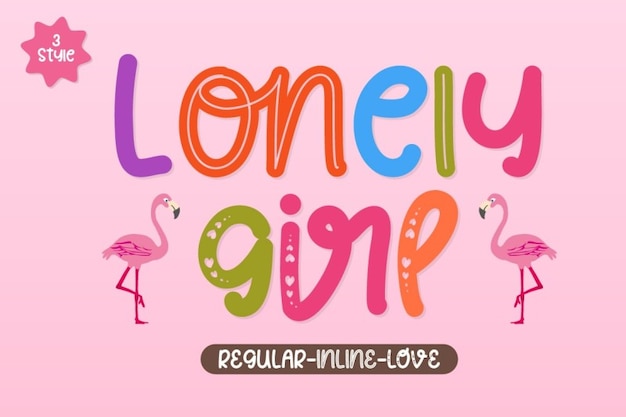
Lonely Girl Font
The Lonely Girl font is the perfect example of an handwritten and funny typeface. Its playful look that comes in 3 styles will definitely make your project stand out! You can use it for many purposes and projects, especially for posters and titles. Download it now and start designing!
Lonely Girl Regular (400)
Lonely Girl Love Regular (400)
Lonely Girl Inline Regular (400)